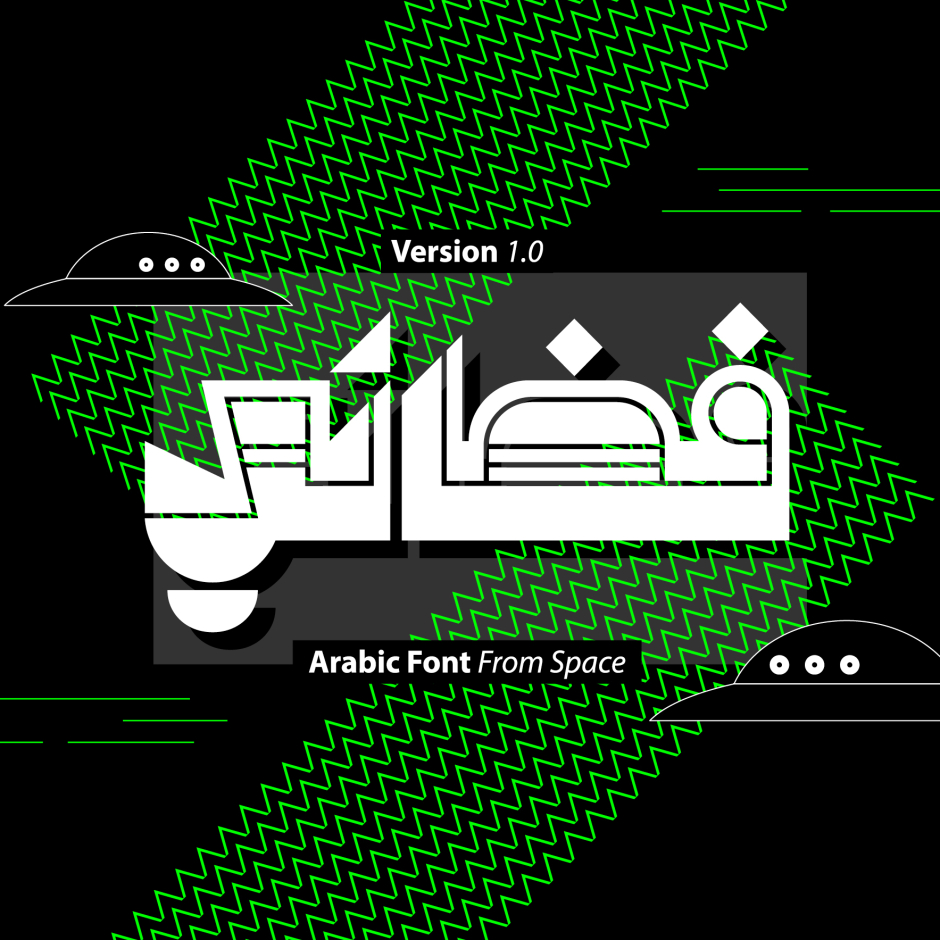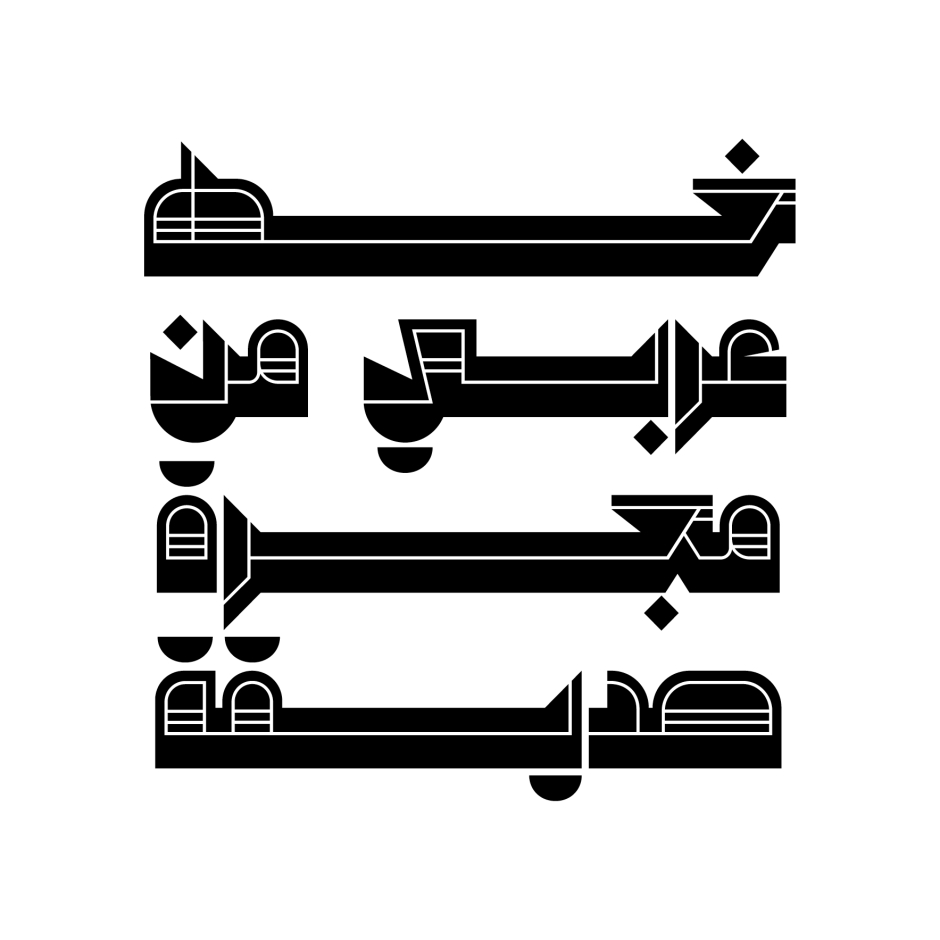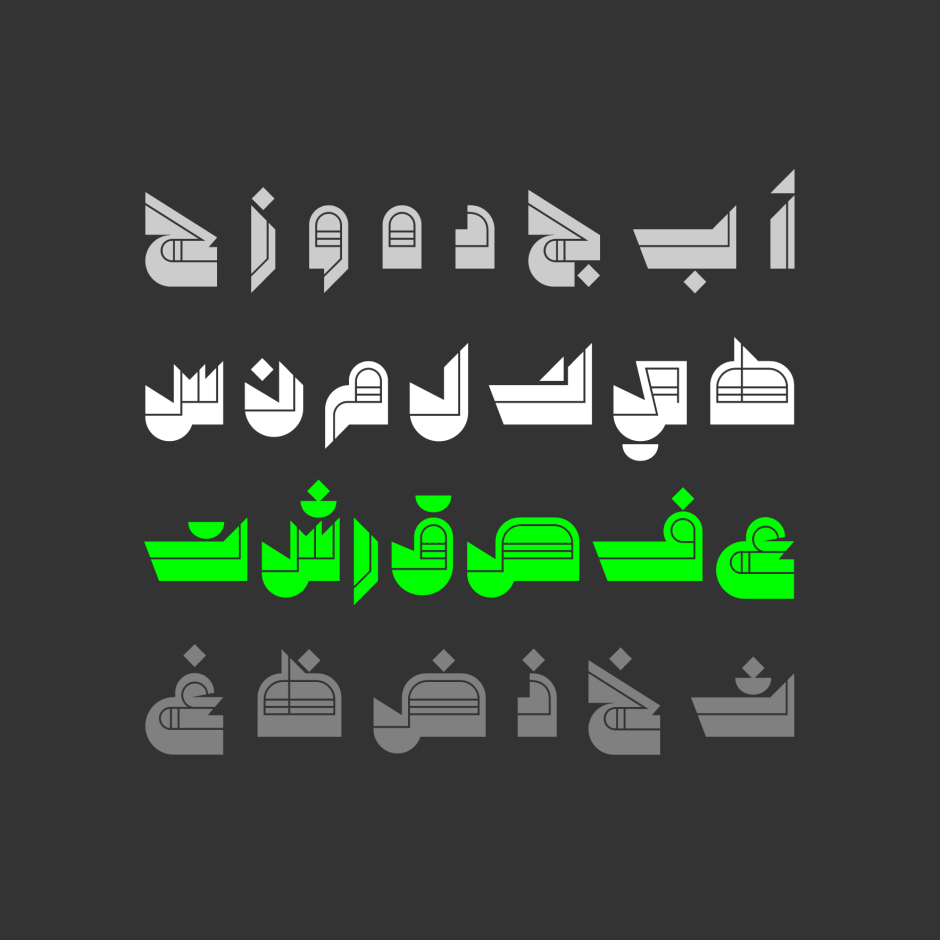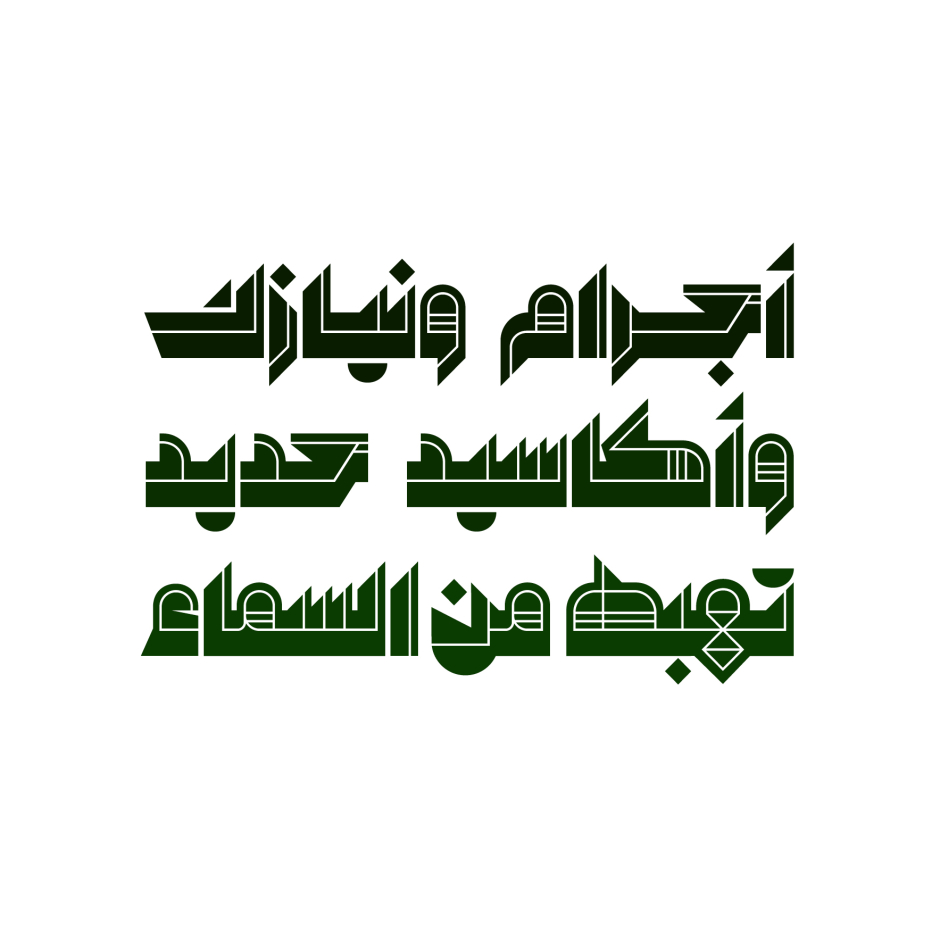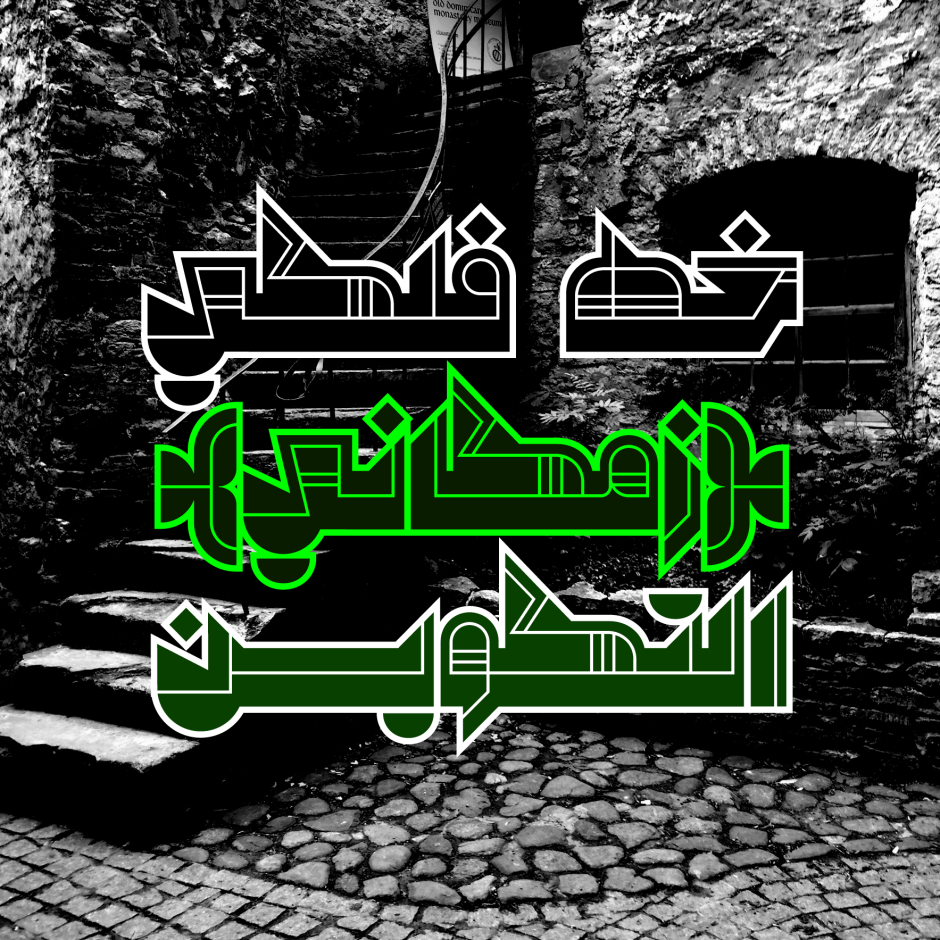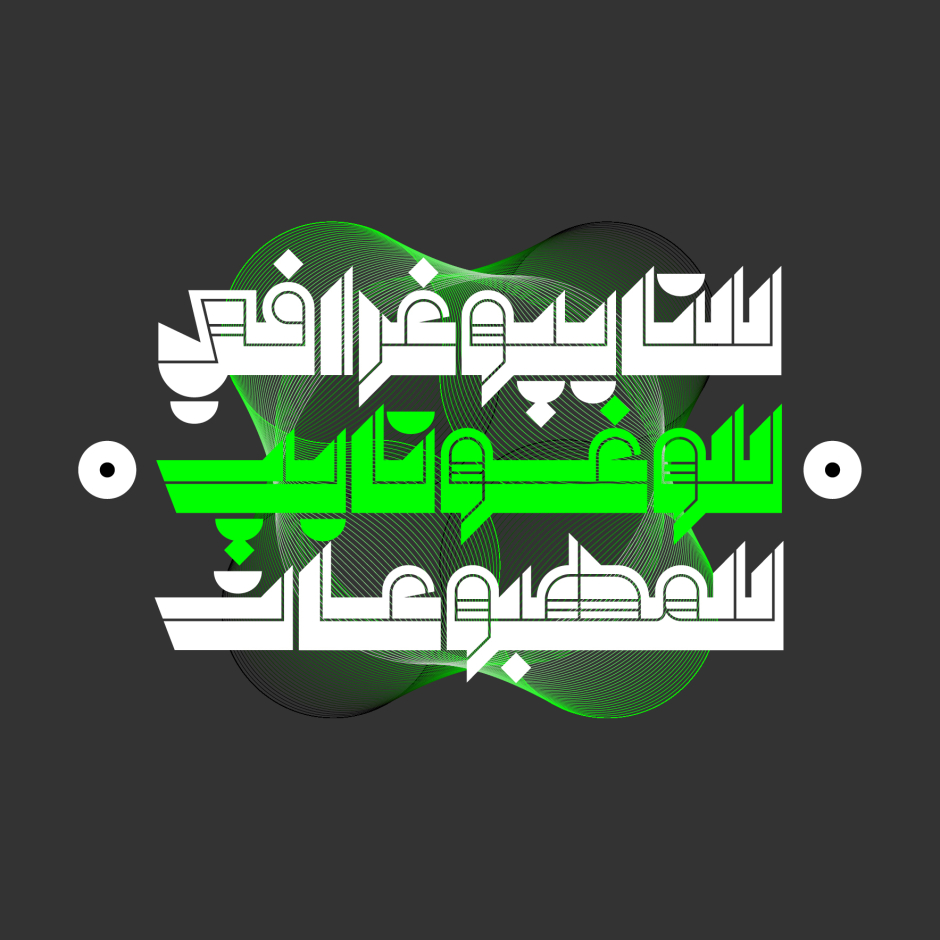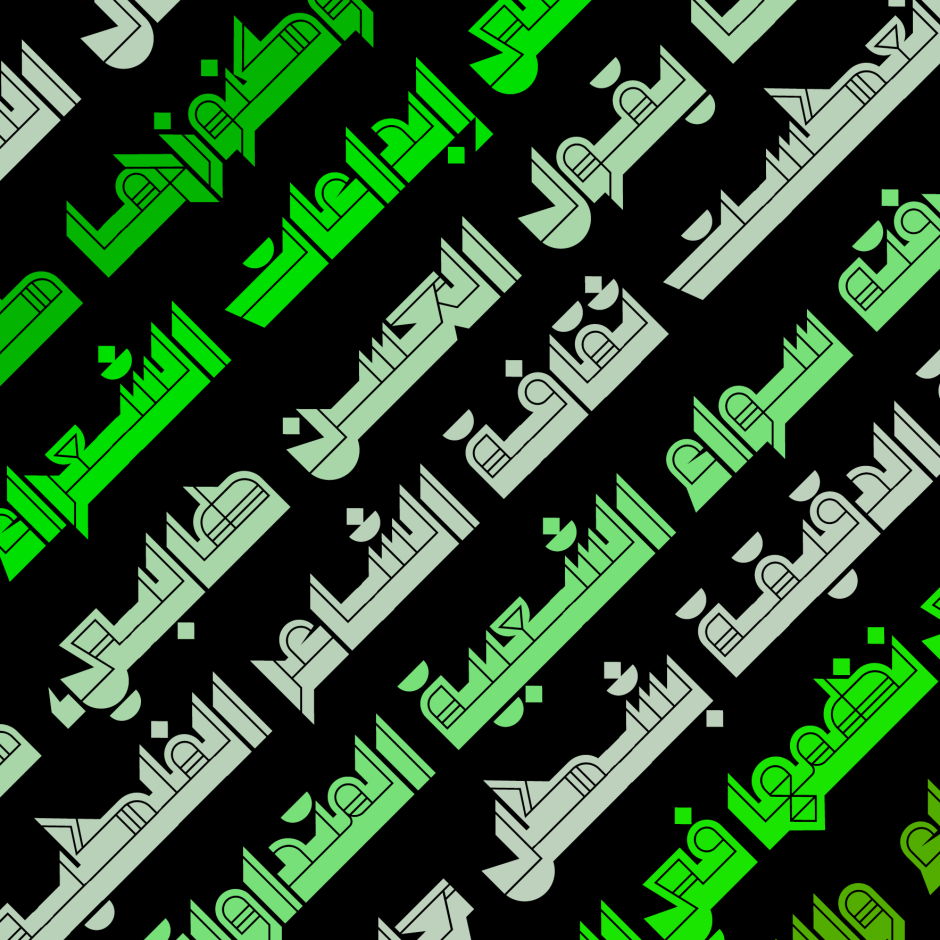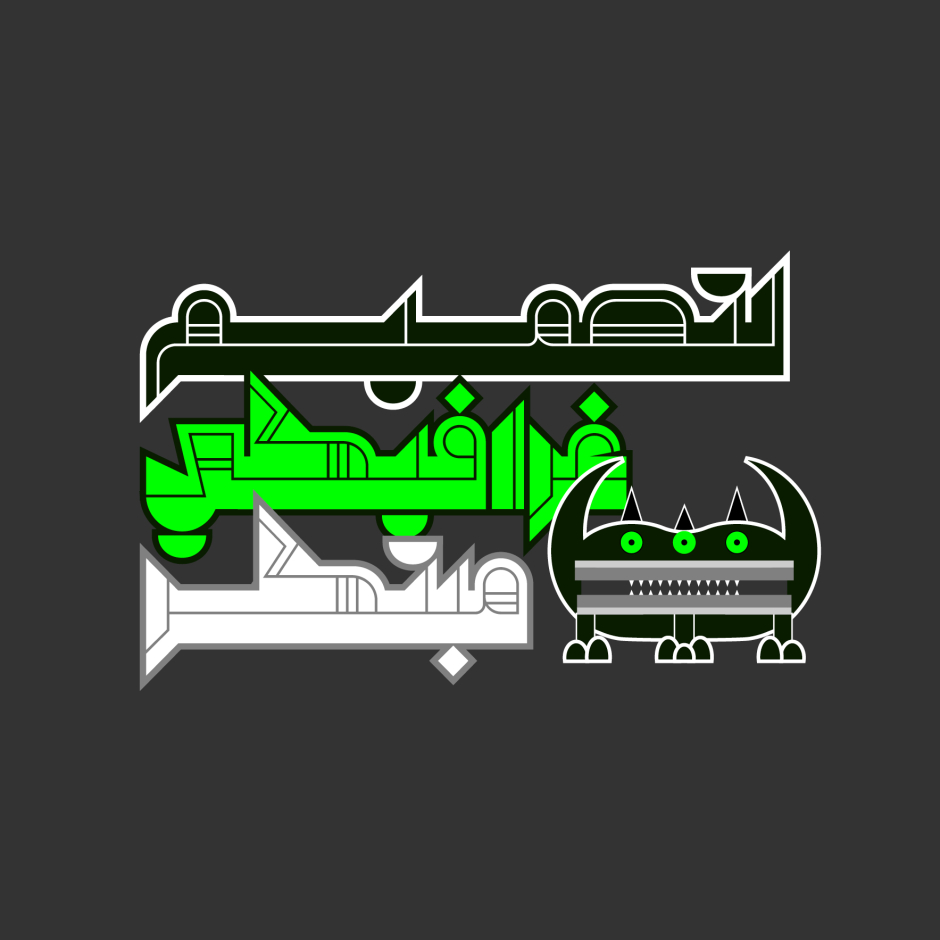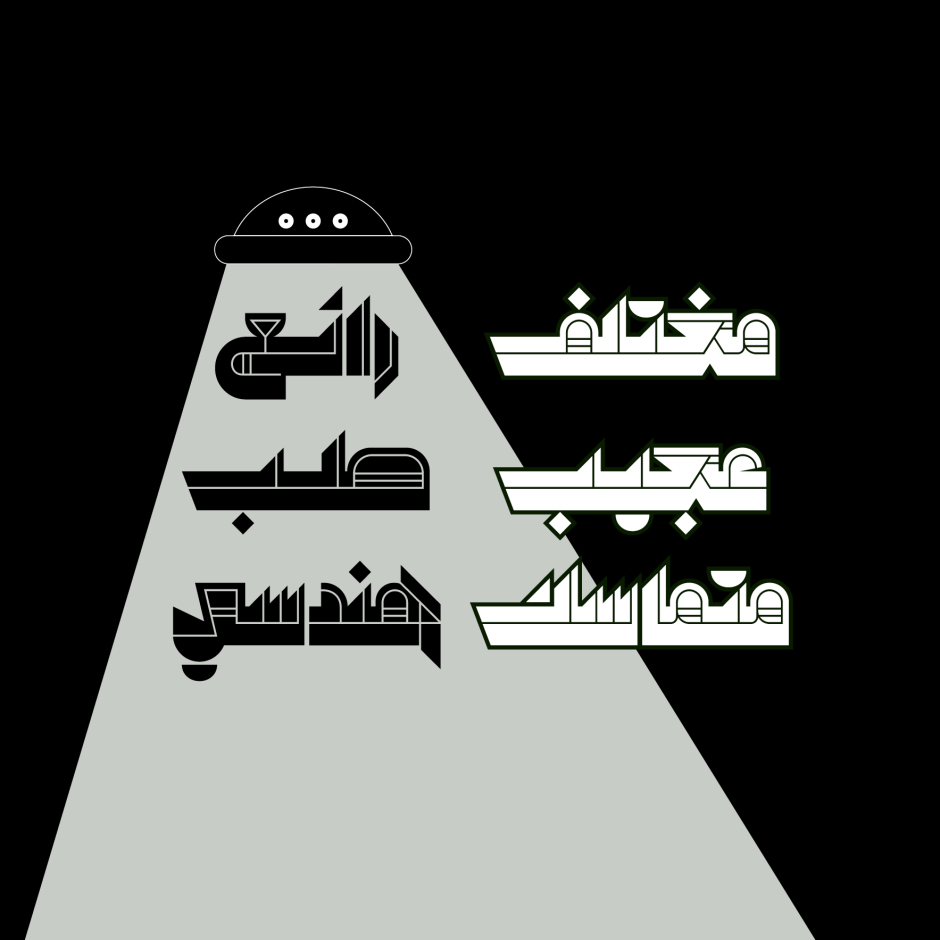
Fada’ey
Fada’ey (the Arabic word for ‘Celestial’) is an Arabic display font with solid-geometric letterform structure. The font design is inspired by astronomy and space themes. Fada’ey suits all creative projects including web, print, branding and advertising. It supports Windows ,macOS and mobile applications.